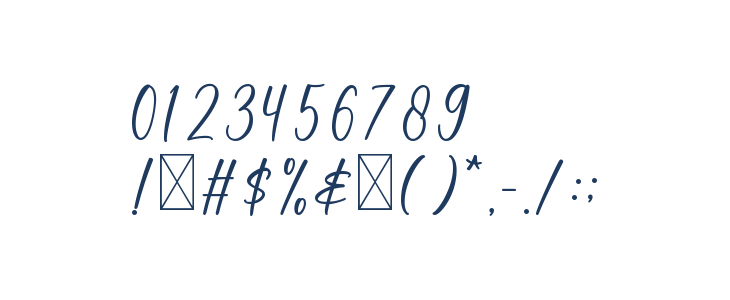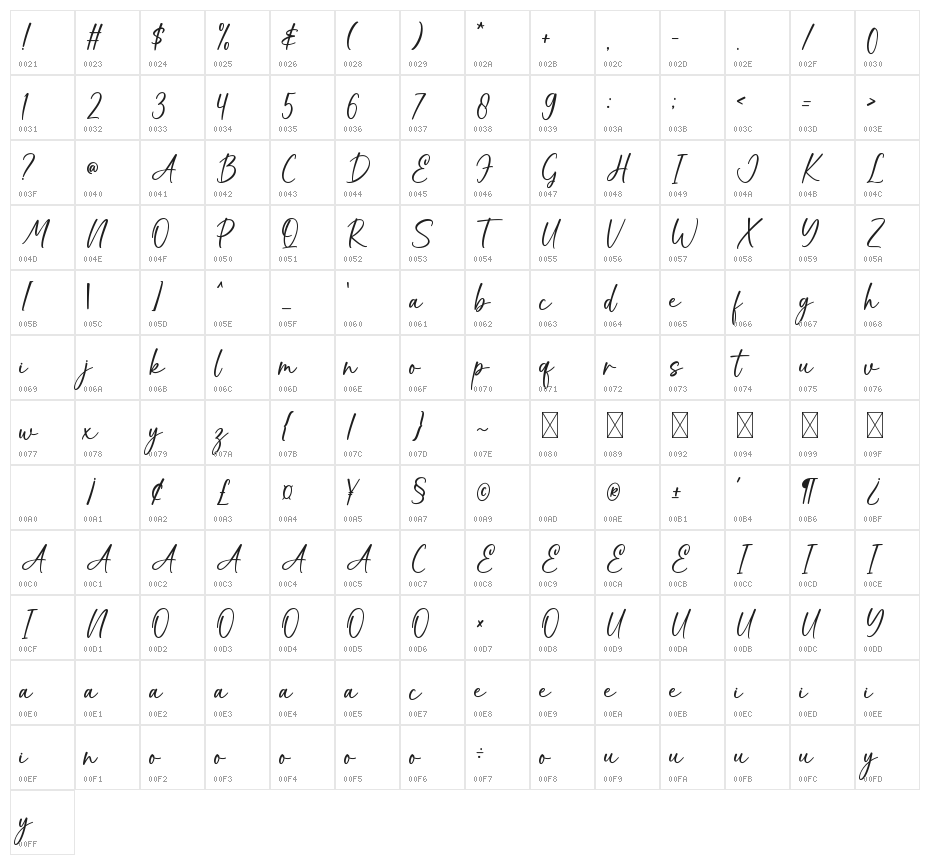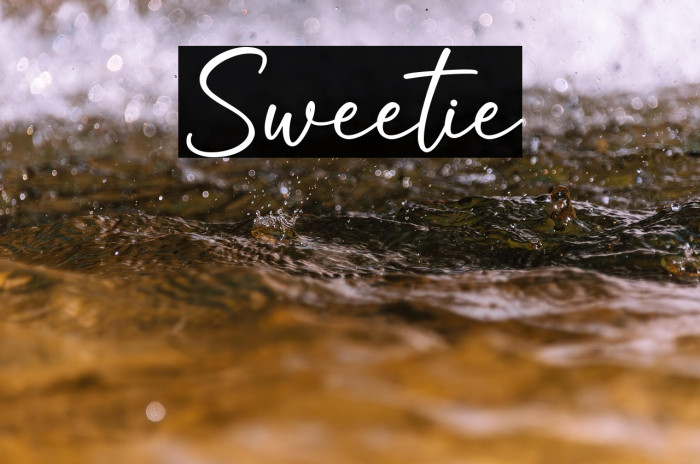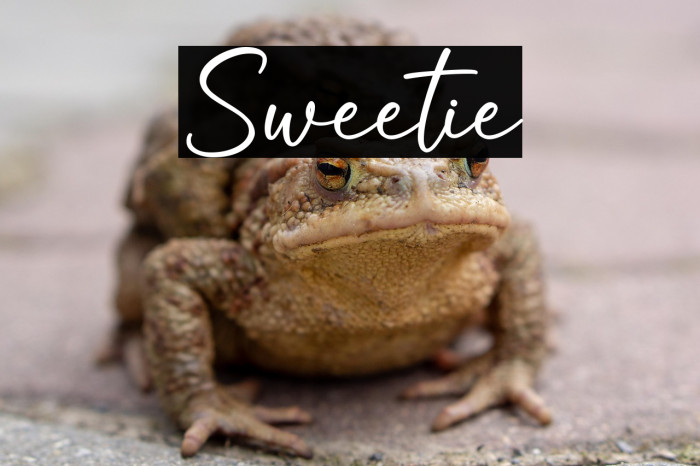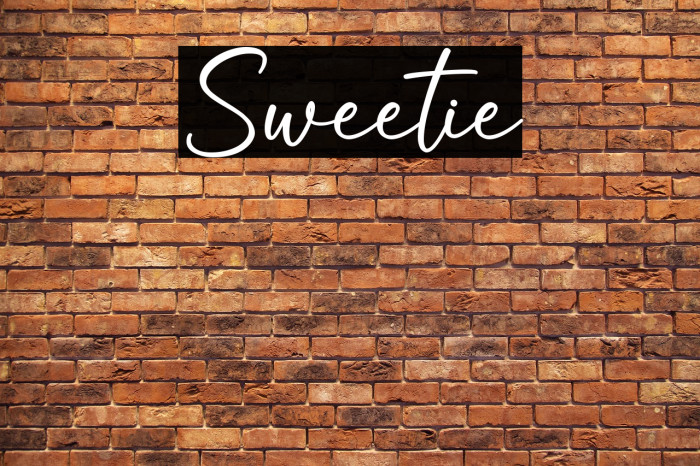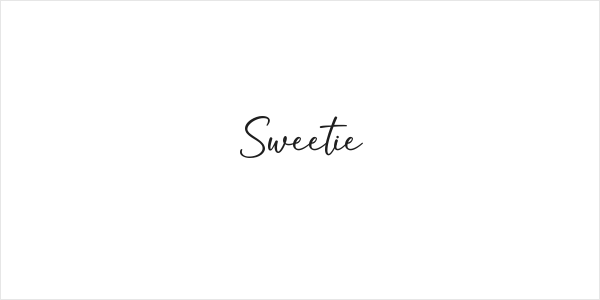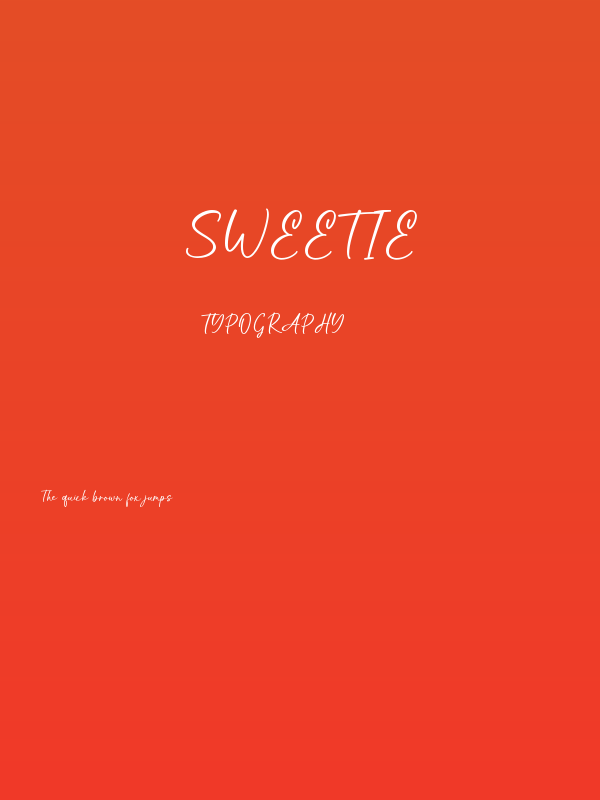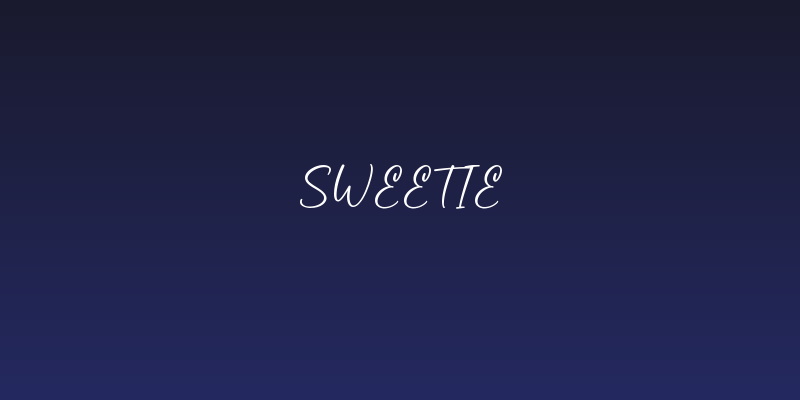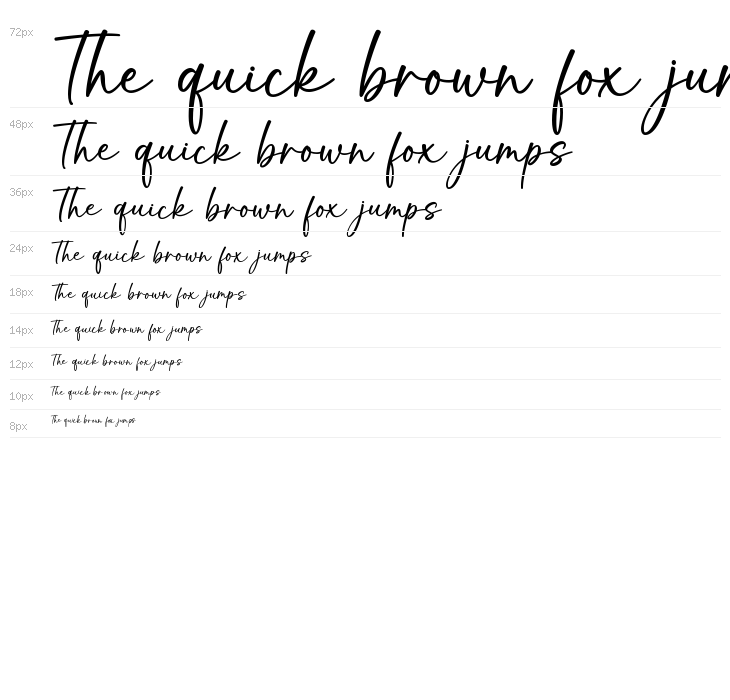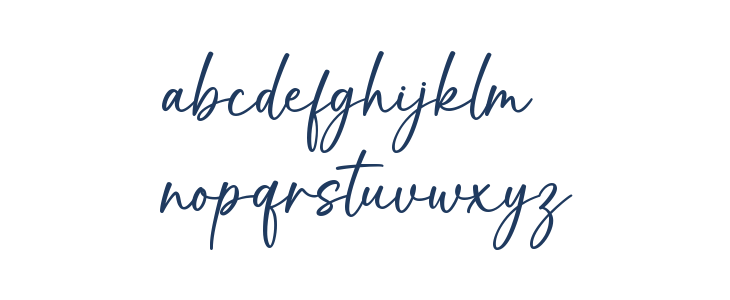
Sweetie Font
Sweetie Description
This font features a playful and elegant handwritten style, characterized by smooth, flowing lines and a casual, yet sophisticated appearance. The uppercase letters are slightly slanted, giving a dynamic feel, while the lowercase letters maintain a consistent flow with occasional loops and flourishes. The numerals are clear and legible, matching the overall aesthetic with a touch of whimsy. Special characters are creatively integrated, maintaining the font's cohesive style. This font is perfect for adding a personal touch to any project, offering a balance between readability and artistic flair.
| Proposed Projects | Ideal for wedding invitations, greeting cards, personal branding, and social media graphics. |